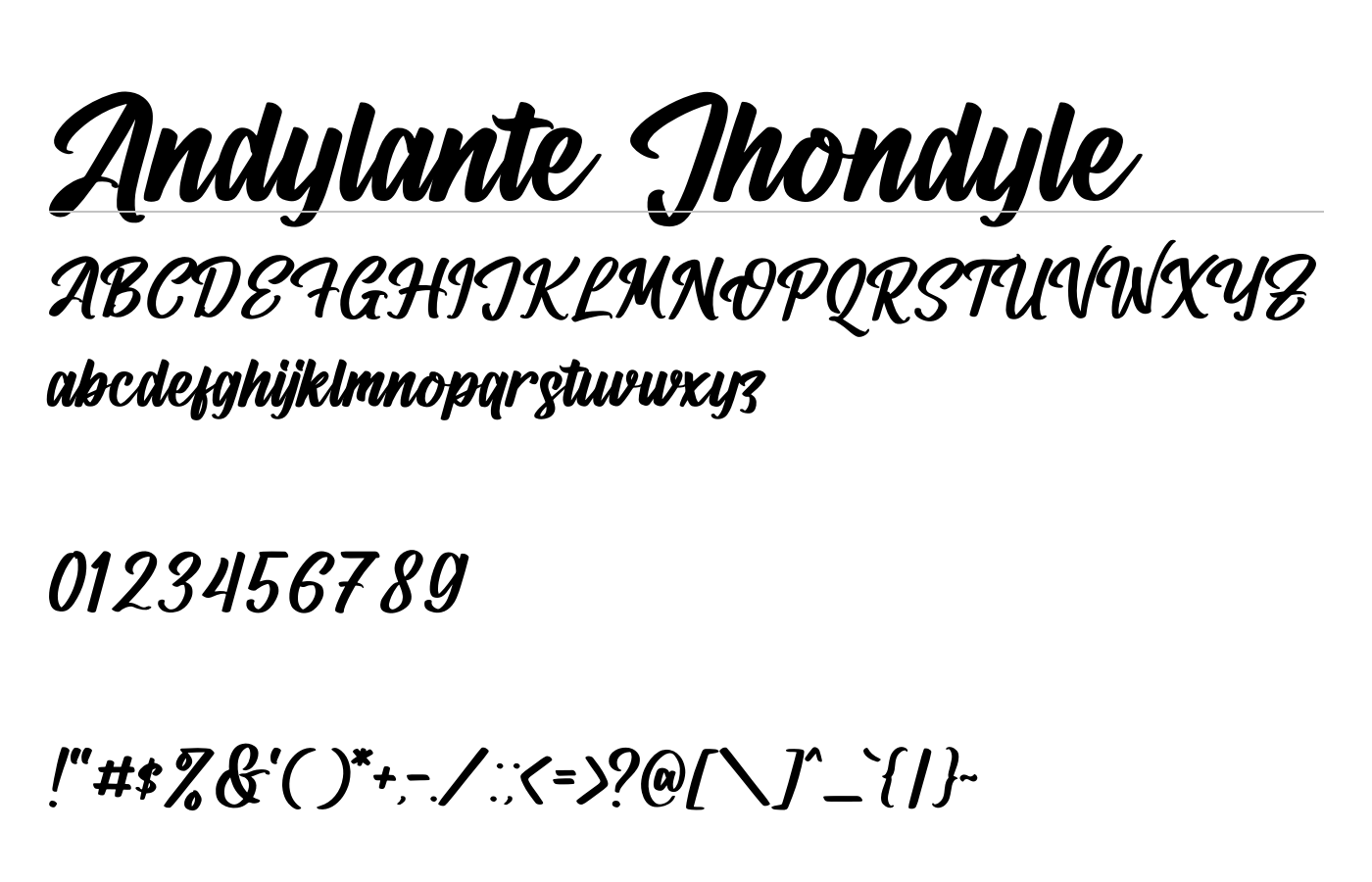
Andylante Jhondyle is a stylish script font with bold, flowing strokes that give it a confident yet elegant feel. Its smooth, slightly slanted letterforms with moderate contrast make it perfect for eye-catching headlines, logos, and creative branding that needs a personal, handcrafted touch. This font works beautifully in designs where a charismatic and modern script vibe is desired, adding warmth and personality without sacrificing readability.
Andylante Jhondyle Font
About Andylante Jhondyle Font